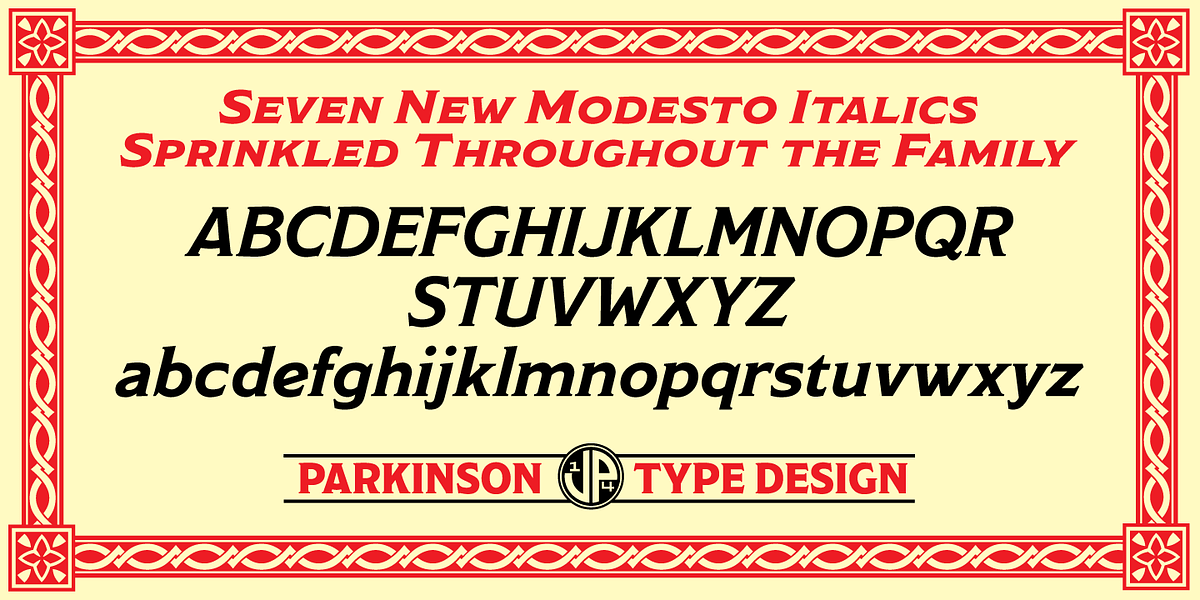
Modesto
Modesto is a display serif typeface inspired by the lettering style popular among sign painters in the late 19th and early 20th centuries. Its design evolved from the lettering used for the Ringling Bros. and Barnum & Bailey Circus Logo. Developed over twelve years, Modesto boasts a loose-knit feel with flared serifs that lend it a vintage charm.